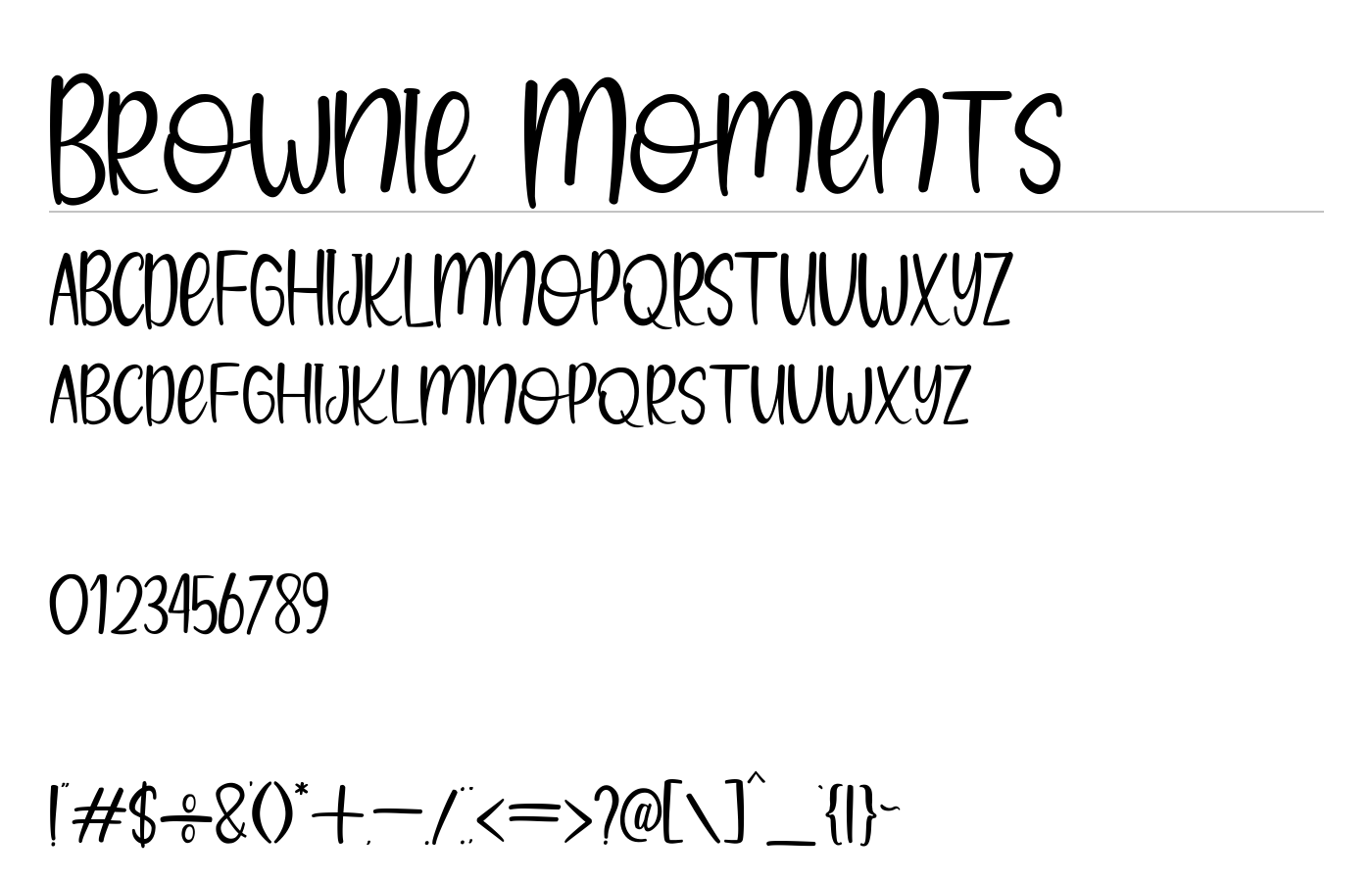
Brownie Moments is a playful and friendly handwritten sans serif font featuring tall, narrow letterforms with smooth, rounded strokes that give it a casual and approachable feel. Its light weight and airy spacing make it ideal for creative projects like invitations, children’s books, and informal branding where a warm, personal touch is desired. This font works best in headlines or short text, adding charm and a whimsical character to designs without sacrificing readability.
Brownie Moments Font
About Brownie Moments Font